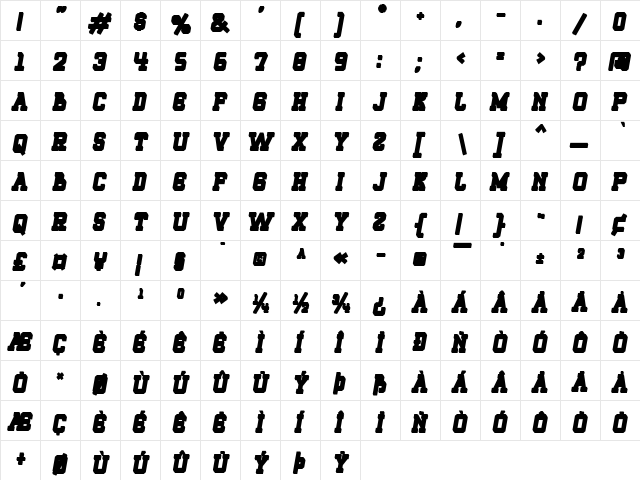
ROQUERO Extrude Italic Bold Italic Font Preview
Design Context for ROQUERO Extrude Italic Typeface
ROQUERO Extrude Italic takes a measured approach to typography — its balanced proportions and neutral character make it a reliable workhorse for both digital and print work. The slanted form adds forward momentum and visual energy. The heavy weight commands attention and anchors typographic hierarchies.
Pro Tip: Try ROQUERO Extrude Italic for annotation and caption copy alongside an upright companion — the contrast in angle creates a dynamic but ordered typographic system.